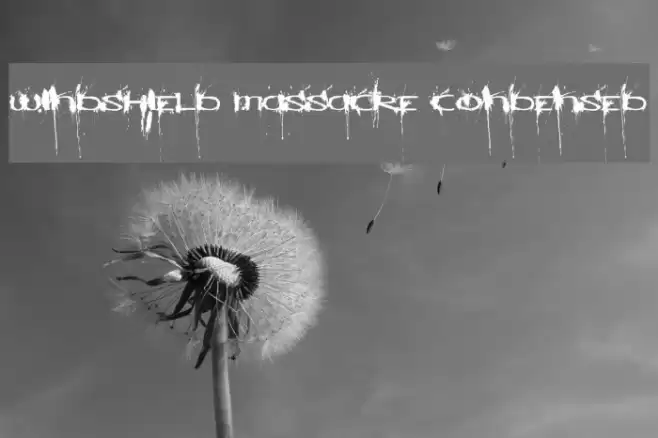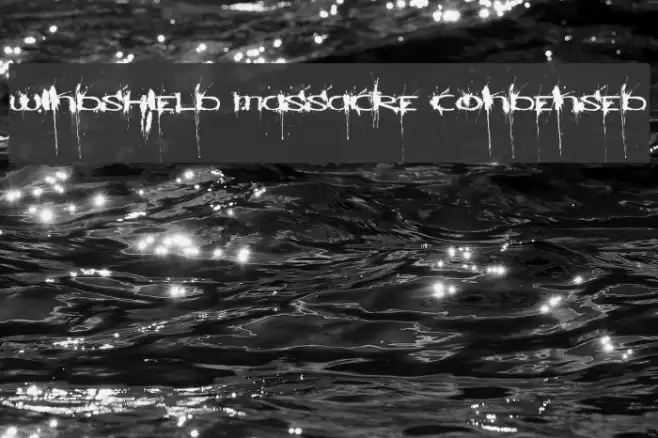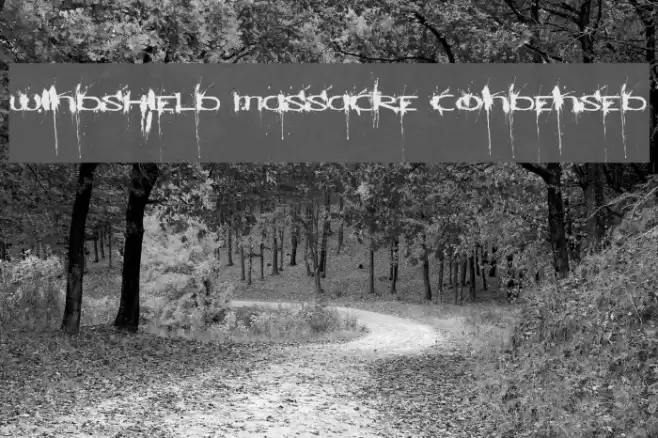
Windshield Massacre Condensed Font
Windshield Massacre Condensed Description
This font features a highly distressed and grungy aesthetic, characterized by splatters and irregular edges that give it a chaotic and raw appearance. The letters appear as if they have been spray-painted or created with a dripping ink effect, adding to its edgy and rebellious vibe. The uppercase and lowercase letters maintain a consistent style, with each character exhibiting unique splatter patterns. Numbers and special characters follow the same design principles, ensuring a cohesive look across all glyphs. This font is ideal for projects that require a bold and unconventional statement.
A distressed, grungy font with splatter and drip effects for an edgy look from Uncategorized fonts.
- Overall Style: Grunge, Edgy, Rebellious